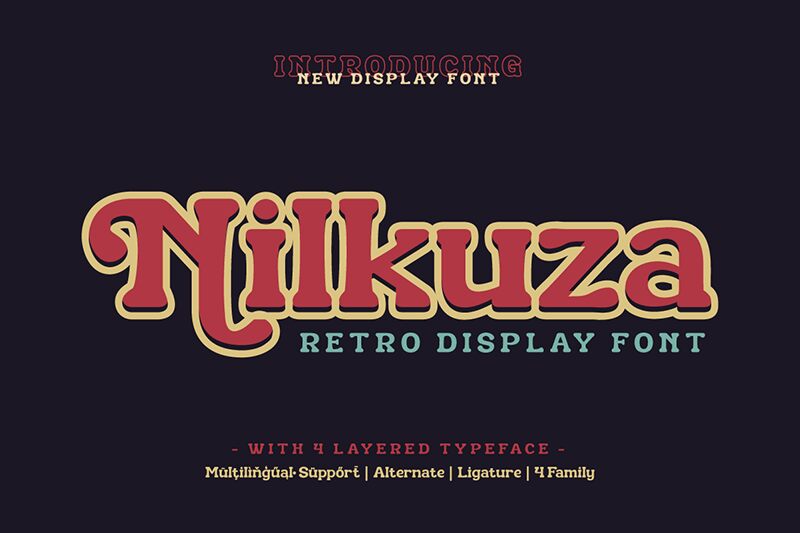
Nilkuza font is a retro bold display font from Twinletter with a strong presence, vintage feel, and friendly appearance. Inspired by slab serif fonts and their rounded features, this display typeface presents its own individual character and flair. Overall, the combination of different classic elements makes Nilkuza legible and clear.